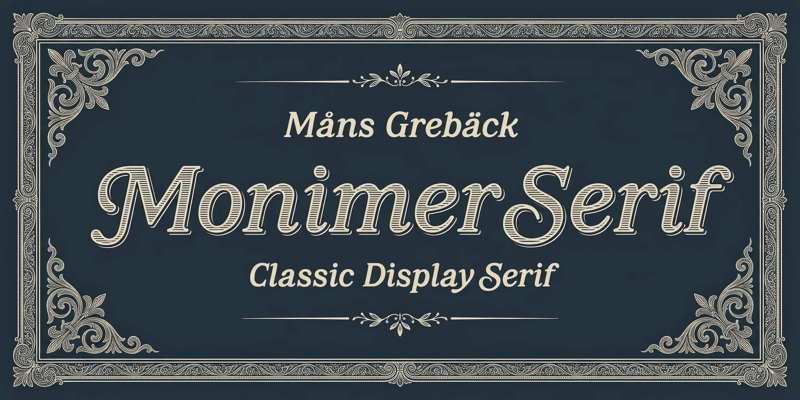
Monimer Serif
NOTE: This font is for PERSONAL USE ONLY! To purchase a commercial license, visit: https://www.mansgreback.com/product/monimer-serif Monimer Serif is a characterful display serif with calligraphic flair — lively, slightly slanted forms, generous curves and crisp bracketed serifs. It reads classic and bookish yet warm, suited to editorial mastheads, book covers, packaging and refined branding. For questions, please visit https://mansgreback.com/faq